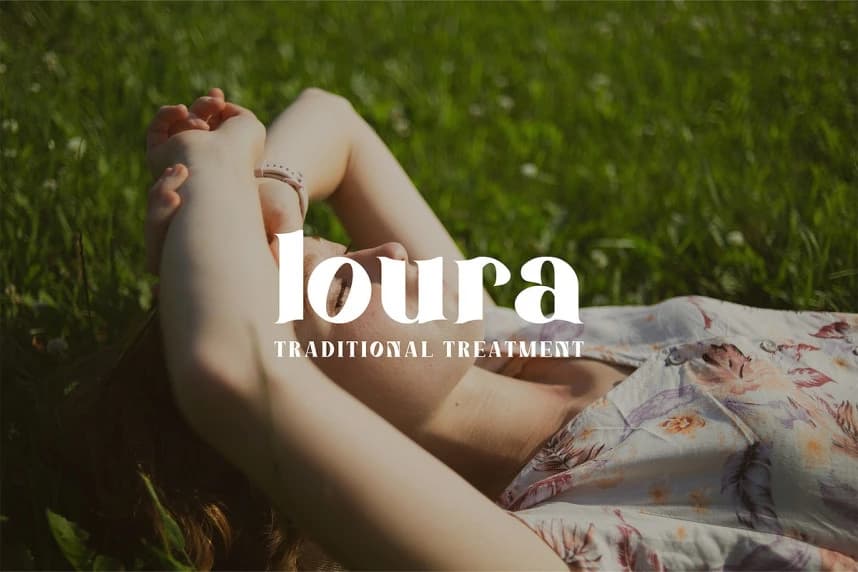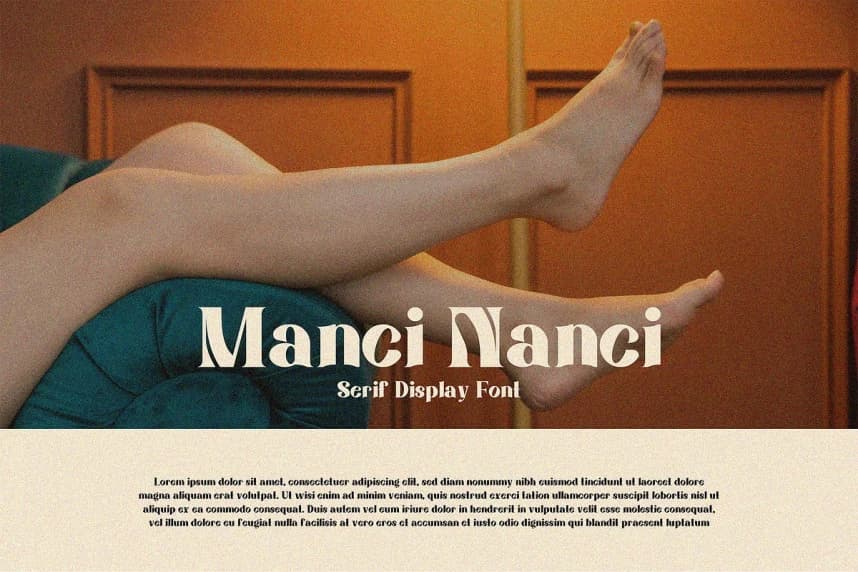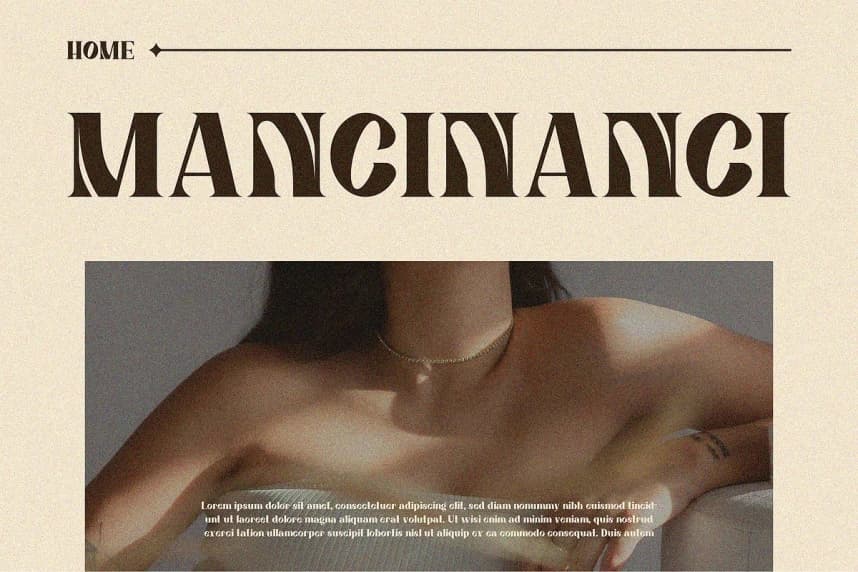
Manci Nanci Font
Manci Nanci Font is a classic retro vintage font inspired by the elegant typography of the 70s to early 80s, featuring subtle art deco influences and decorative serif details. Its bold letterforms are enhanced with thick serifs, smooth curves